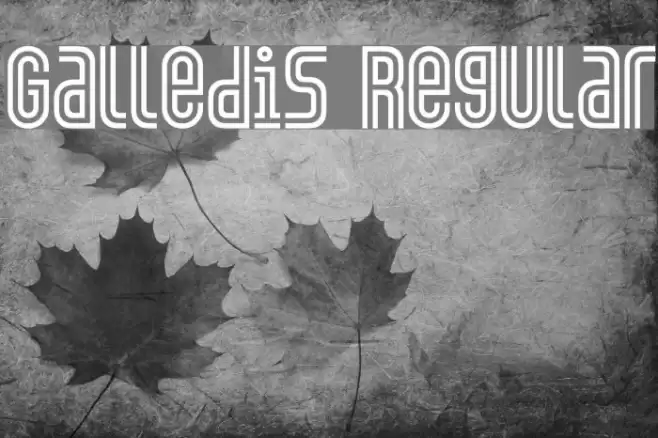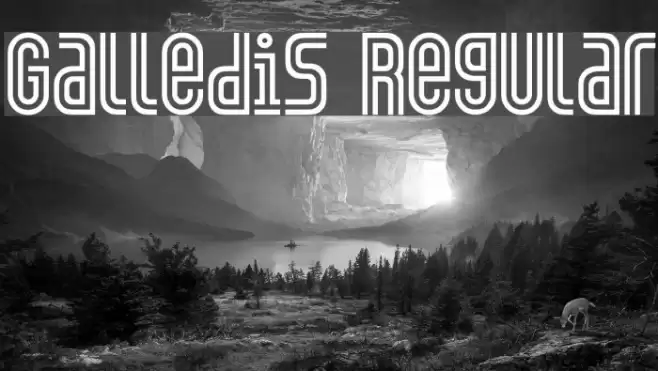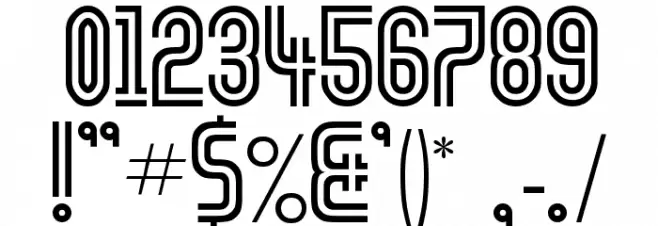
Galledis Regular Font
Galledis Regular Description
This font features a unique, geometric design with double-line strokes that create a modern and futuristic appearance. The characters are constructed with parallel lines that give a sense of depth and dimension. The uppercase and lowercase letters maintain a consistent style, with rounded edges and uniform height, contributing to a cohesive look. The numerals and special characters follow the same design principles, ensuring versatility across different uses. The overall aesthetic is bold and eye-catching, making it suitable for projects that require a strong visual impact.
A modern, geometric font with double-line strokes and a futuristic style from Outline fonts.